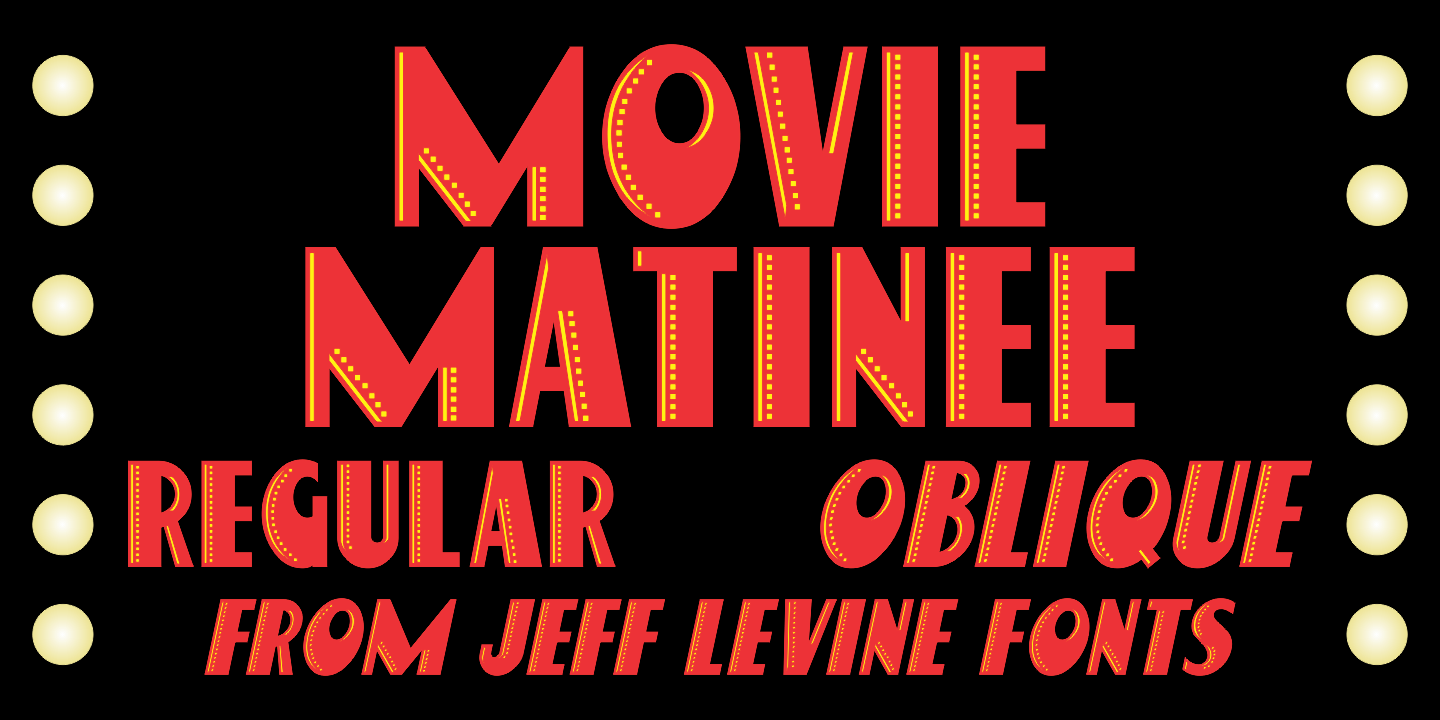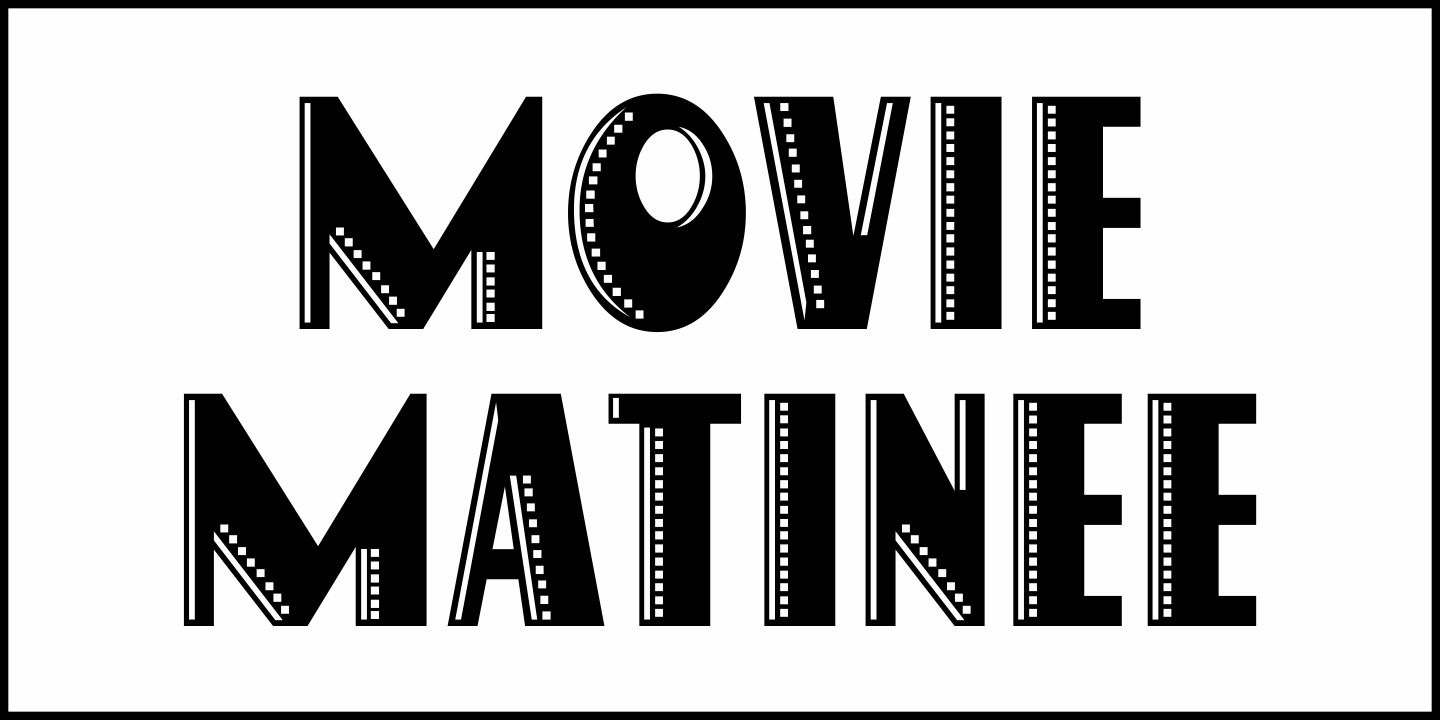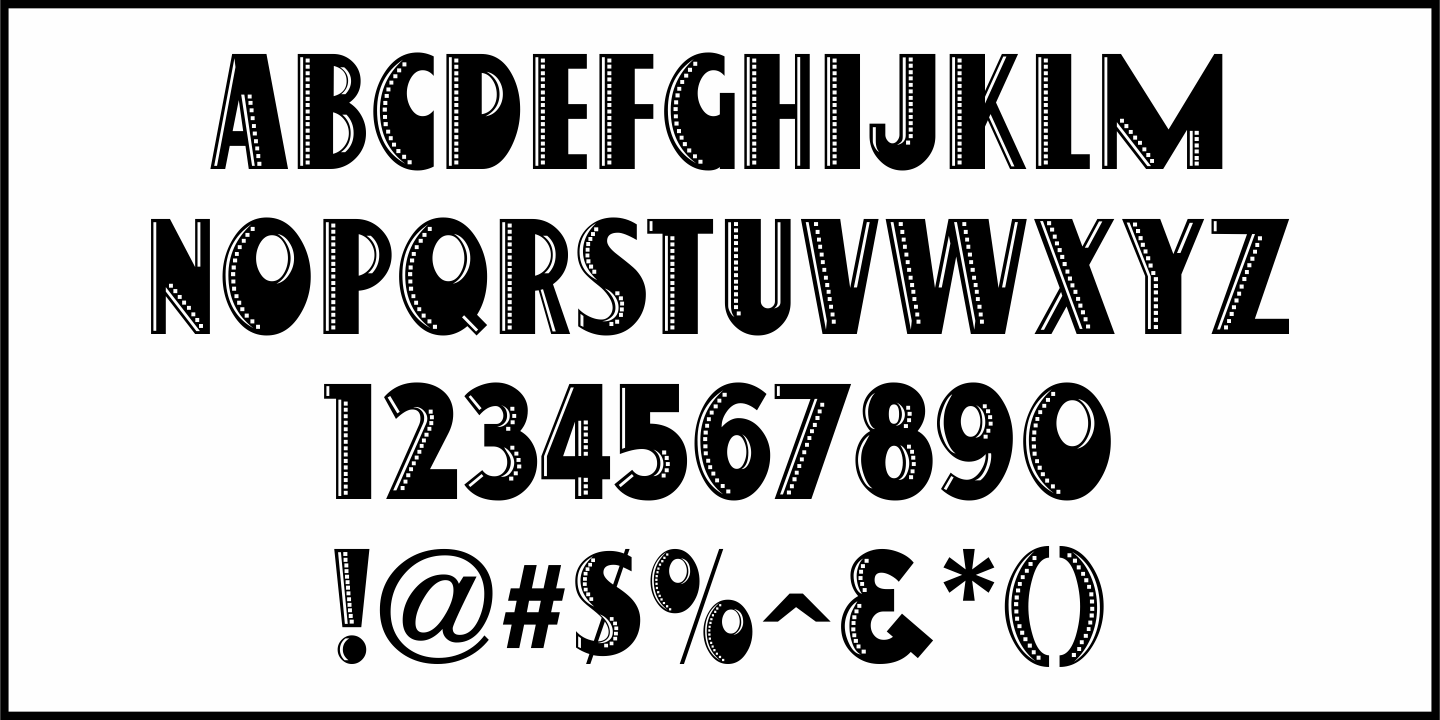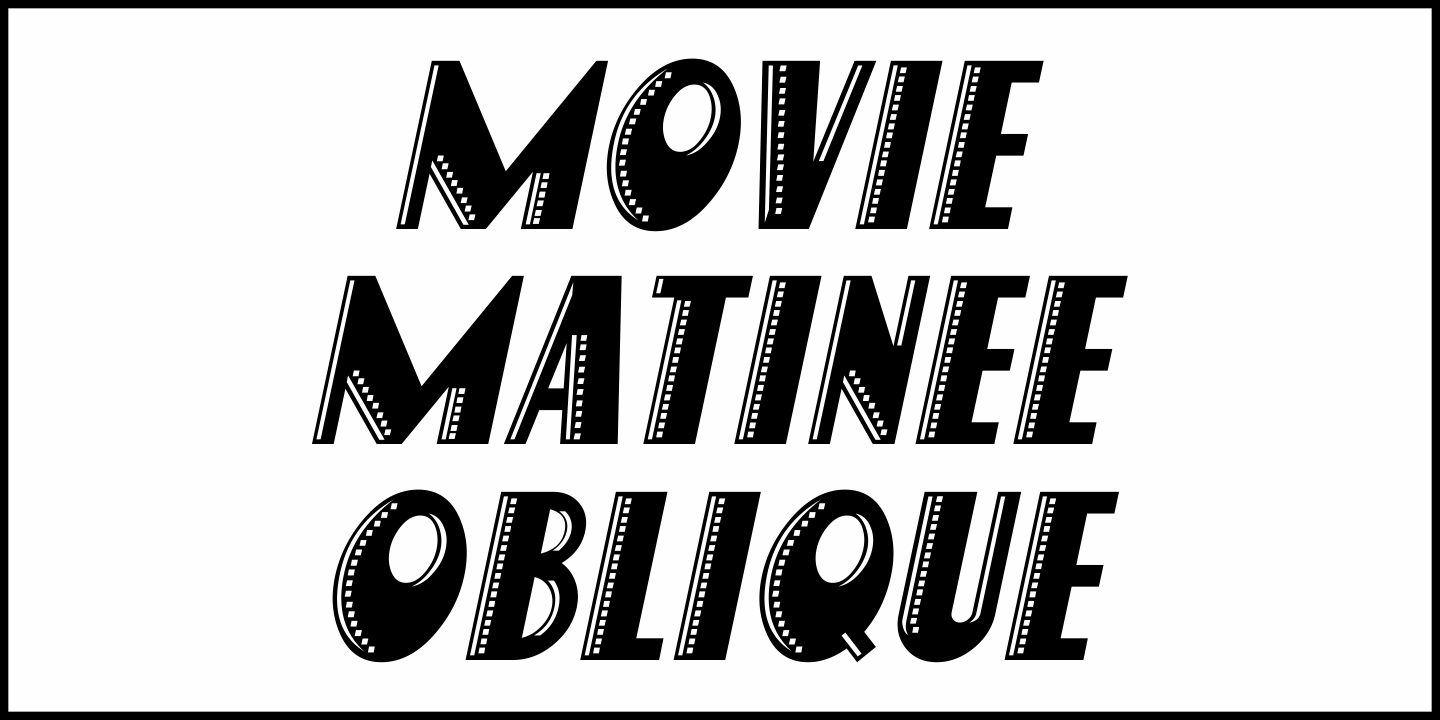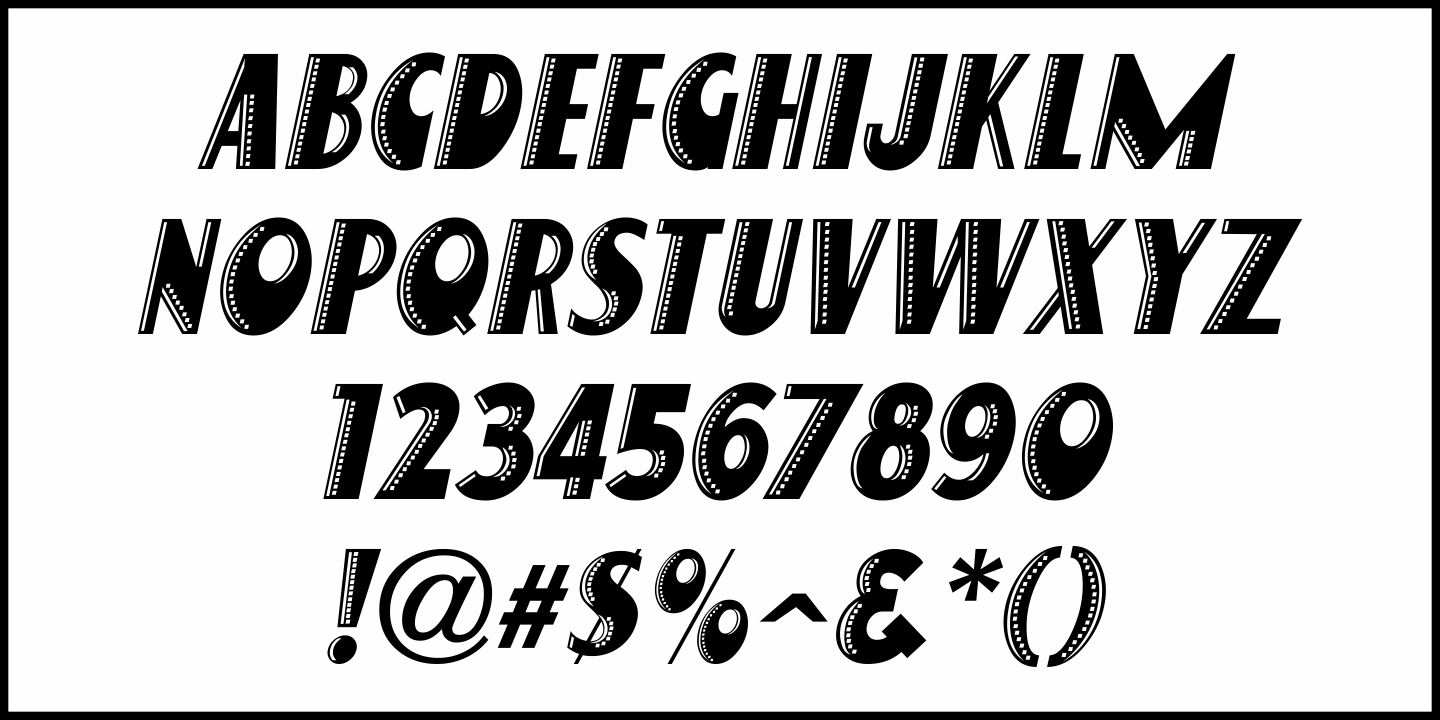
Movie Matinee
A 1926 trade ad for the silent comedy “The Nut-Cracker” starring Edward Everett Horton has the film’s title hand lettered in a decorative bold sans serif design complete with highlight lines and accent dots.
This festive type face is now available digitally as Movie Matinee JNL in both regular and oblique versions.
Movie Matinee JNL Regular by Jeff Levine Fonts